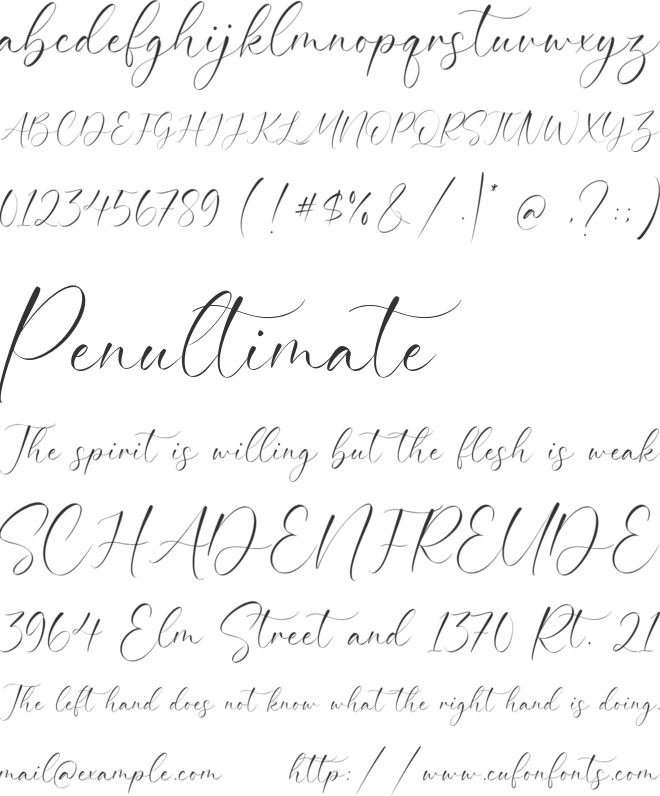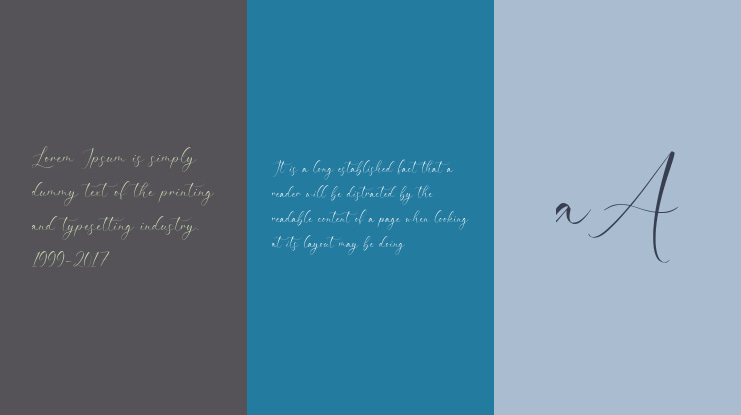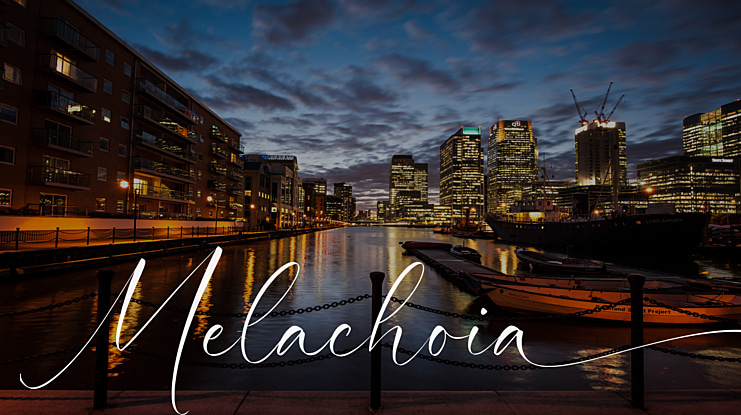
Proudly Present Melancholia
Melancholia is a Handwritten script font that is modern and fresh, and will bring a warm and inviting feel to your business. Take advantage of the fonts and experience the magic for yourself.
Melancholia is perfect for product packaging, branding project, megeenazine, social media, wedding, or just used to express words above the background.
Melancholia Font Features premium :
-Full Set of standard alphabet and punctuation
– Melancholia also multilingual support.
- Ligature and Swash